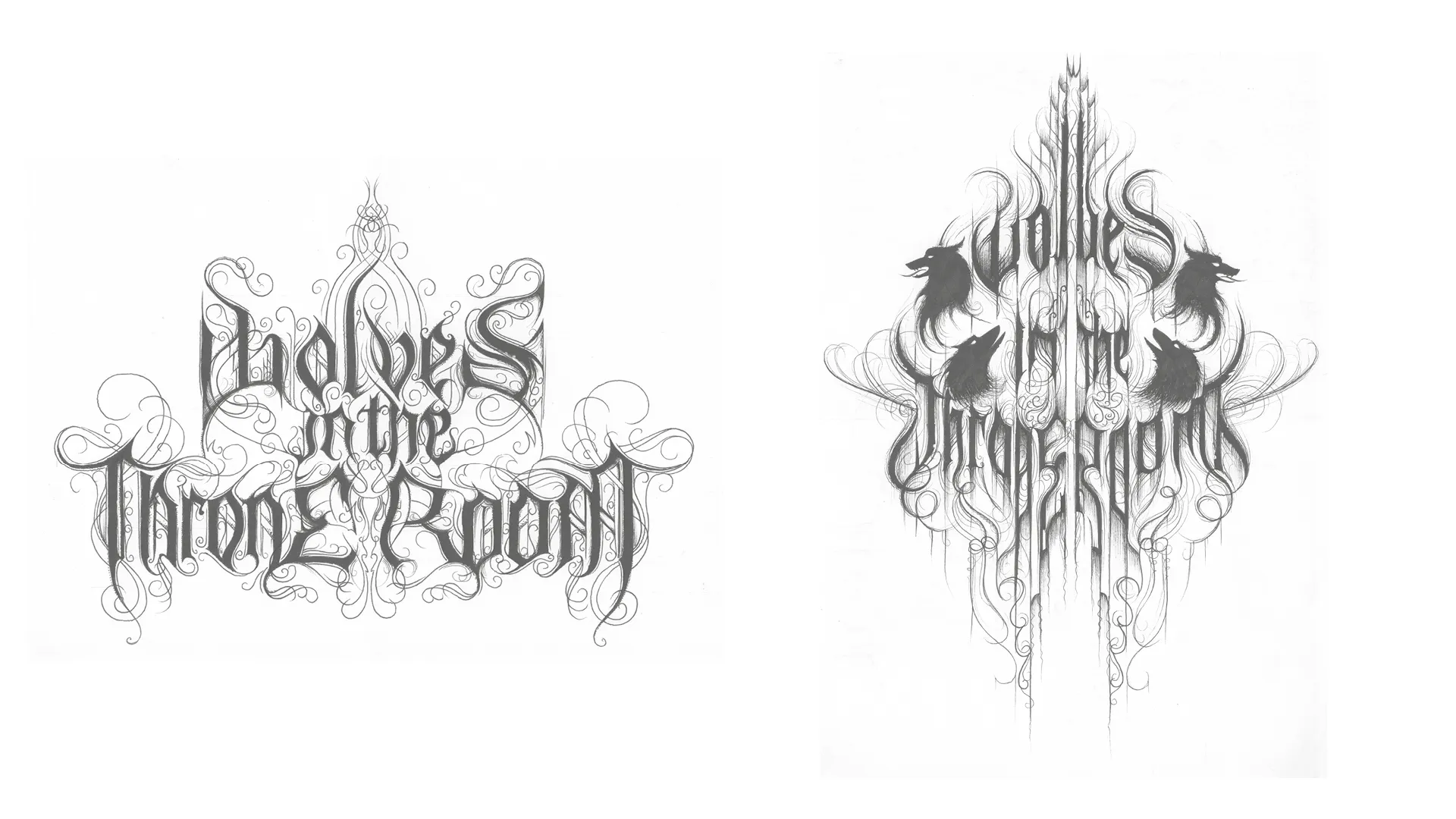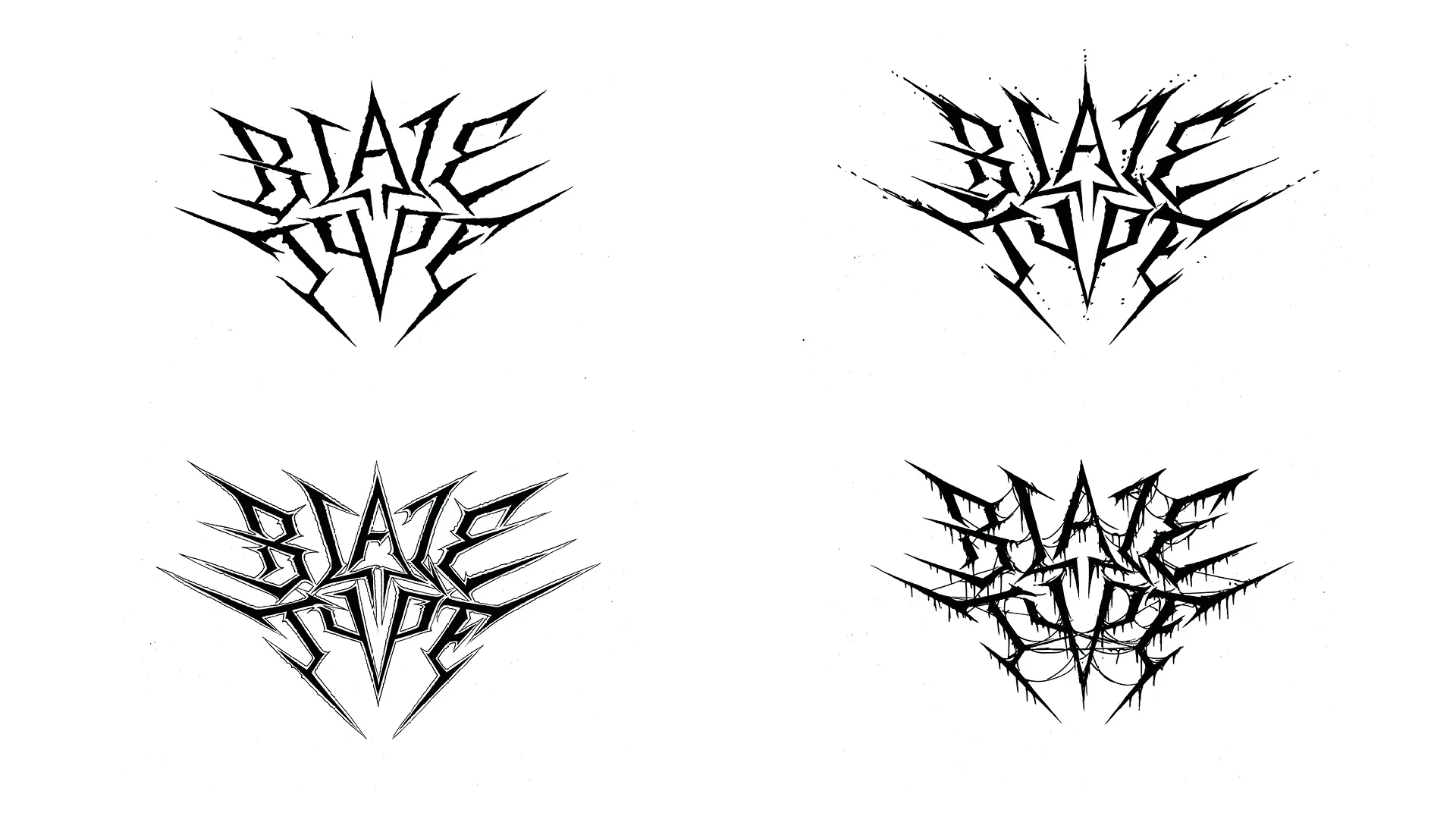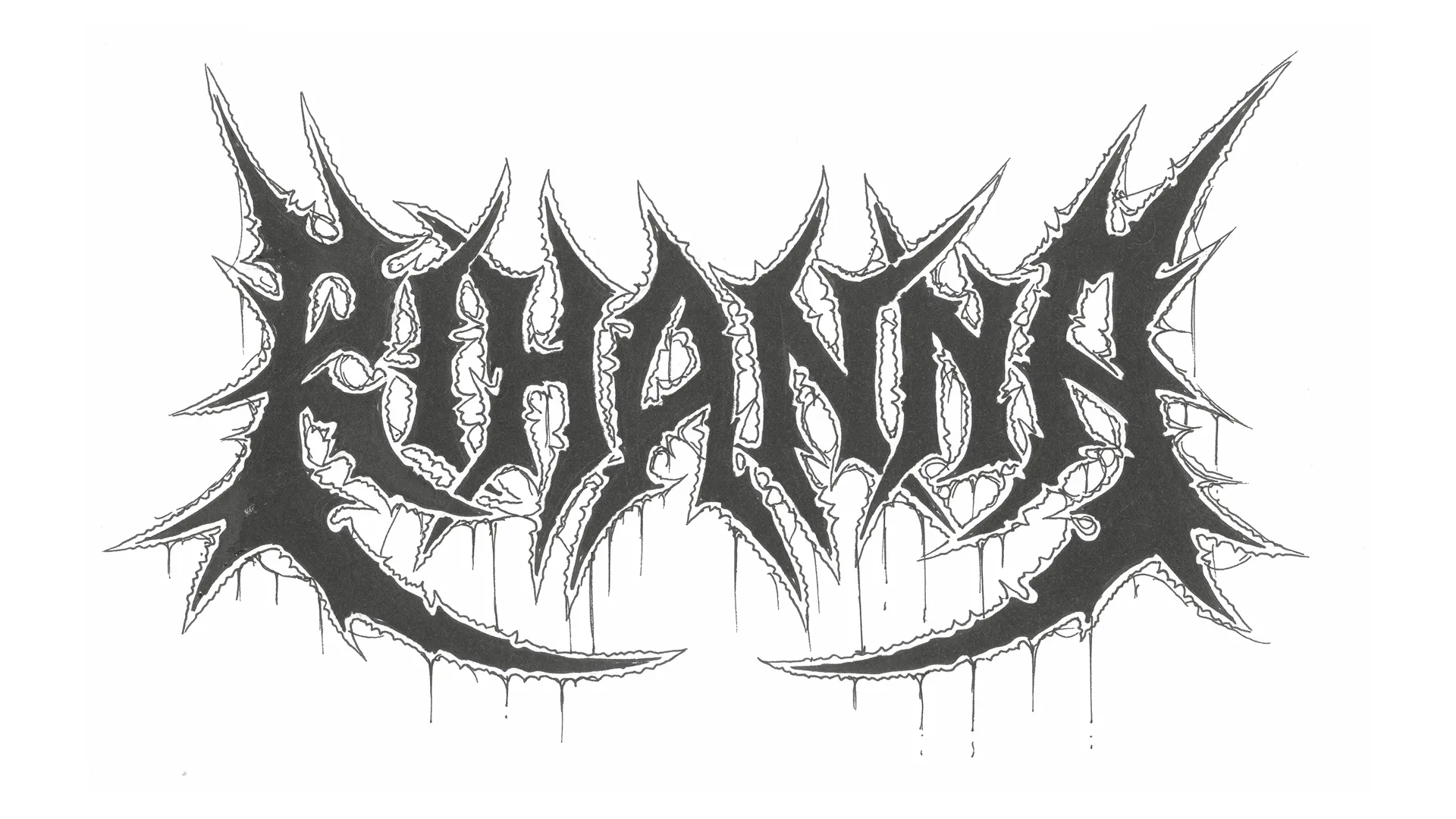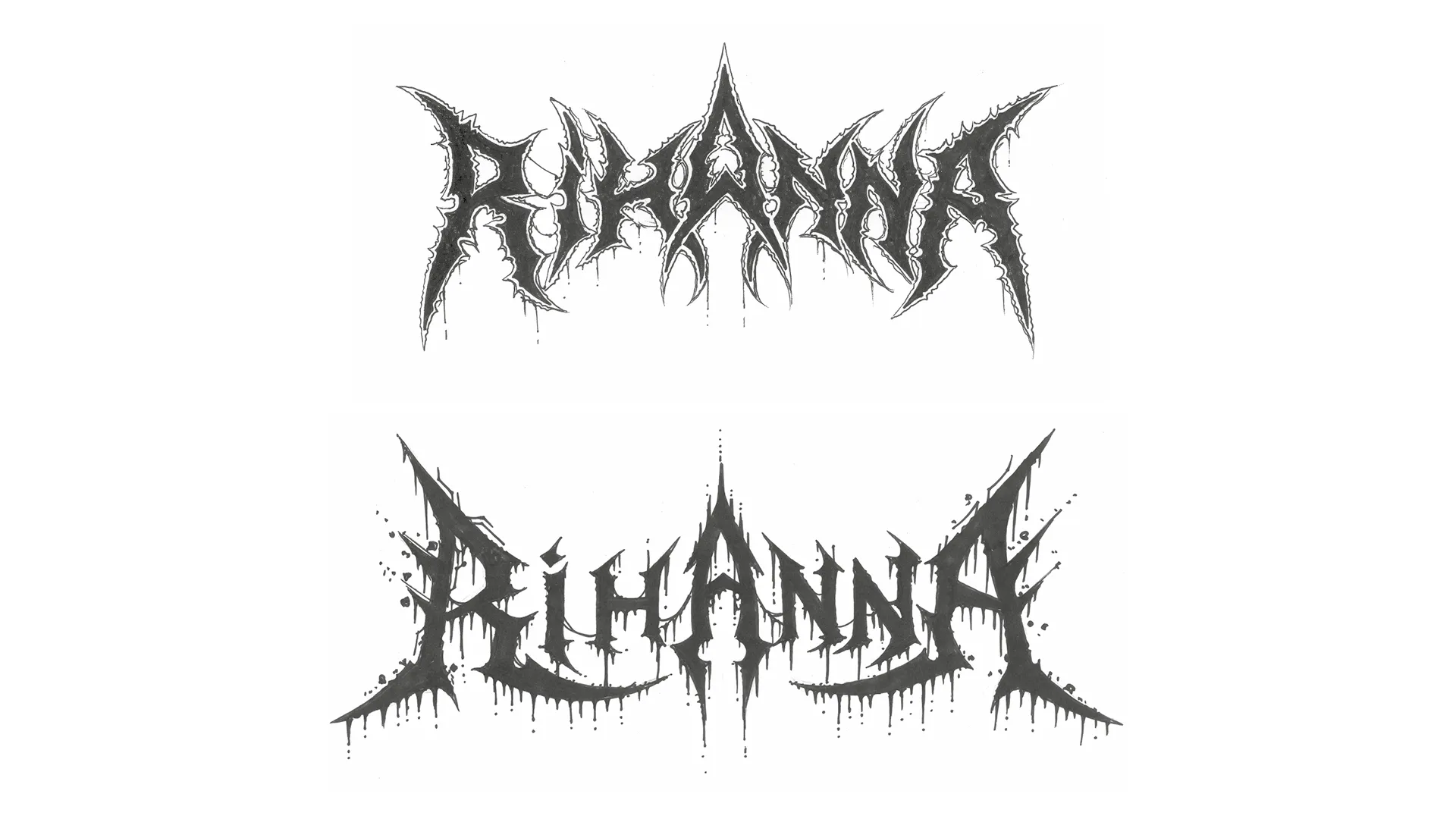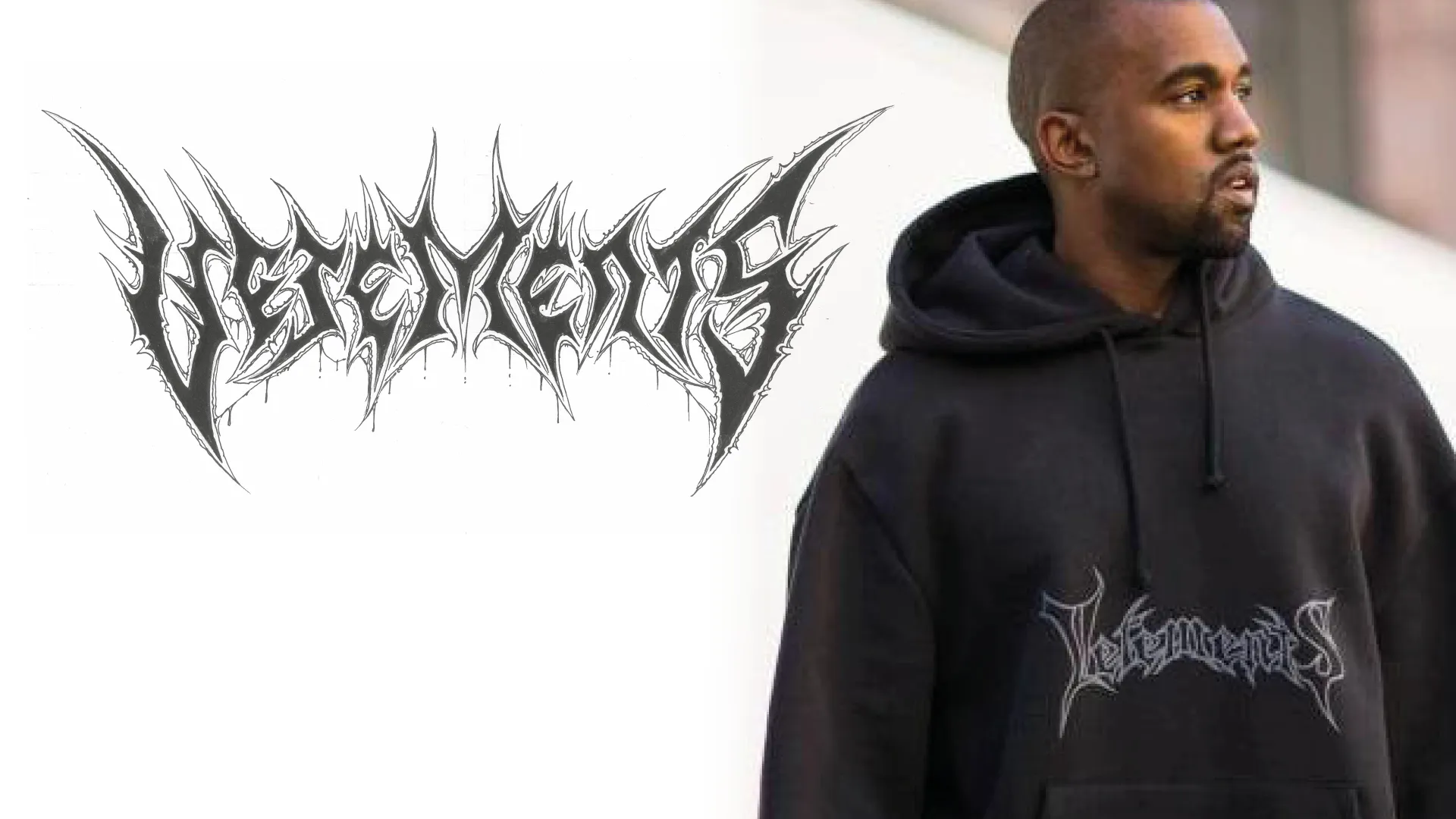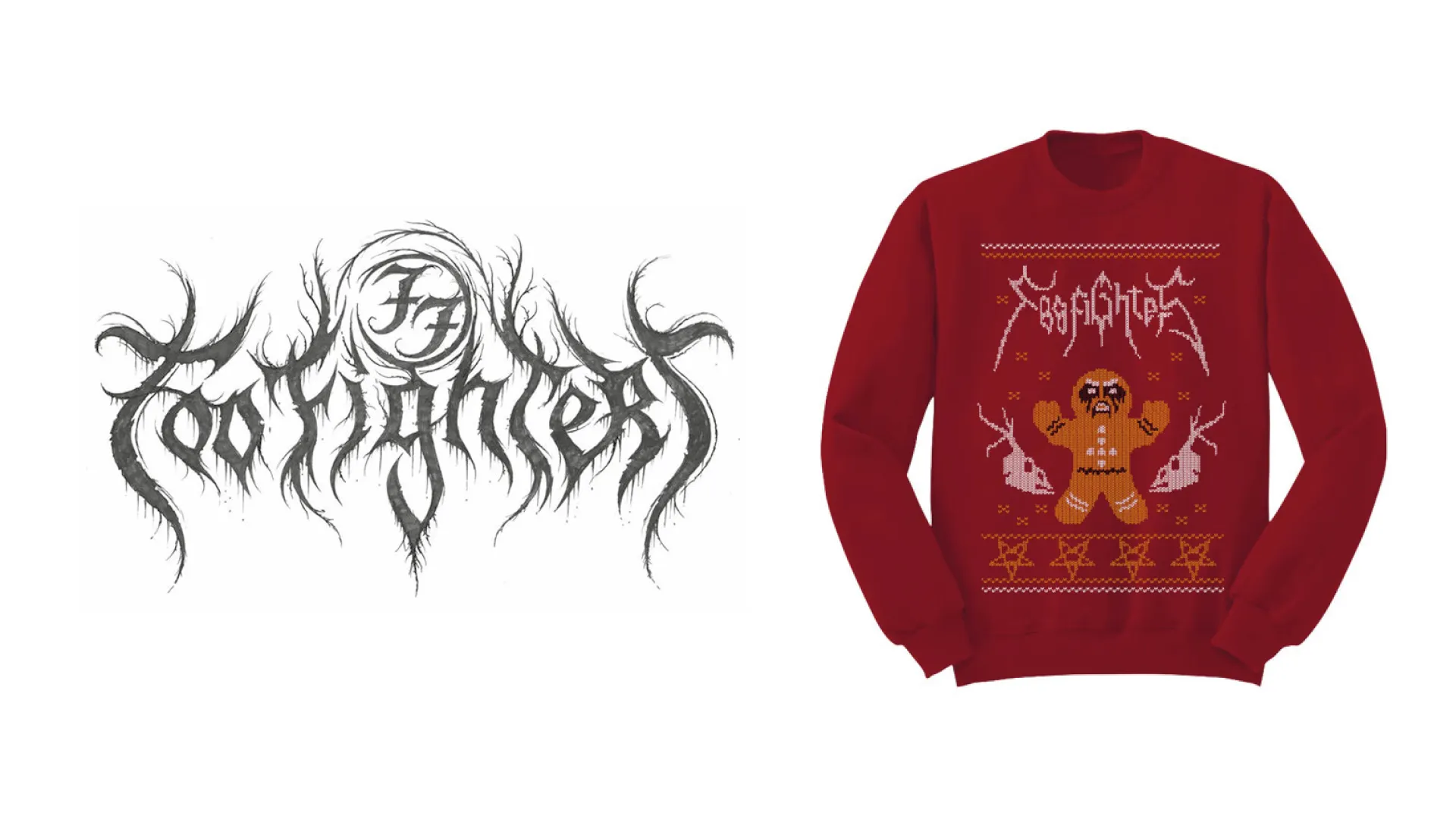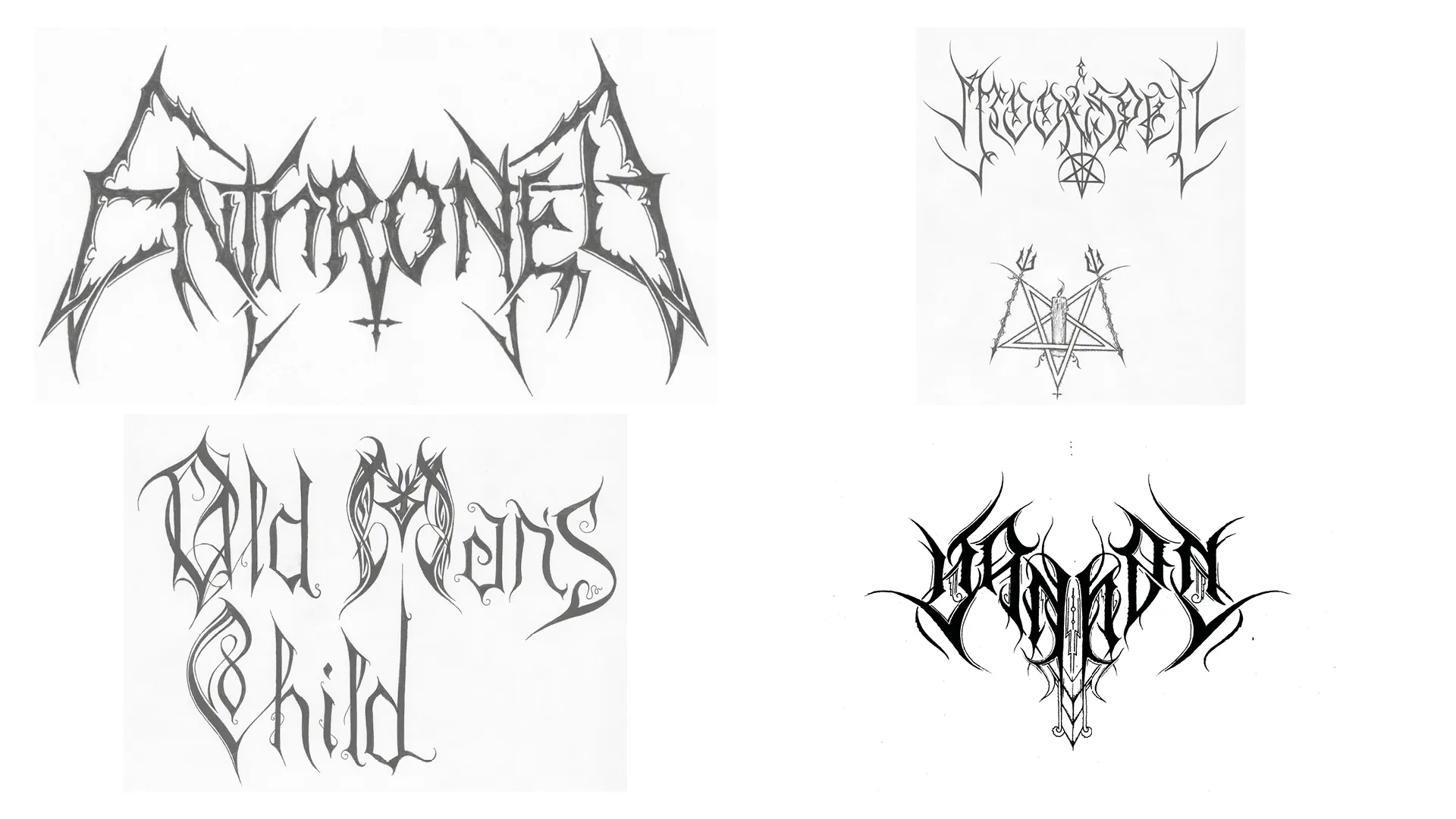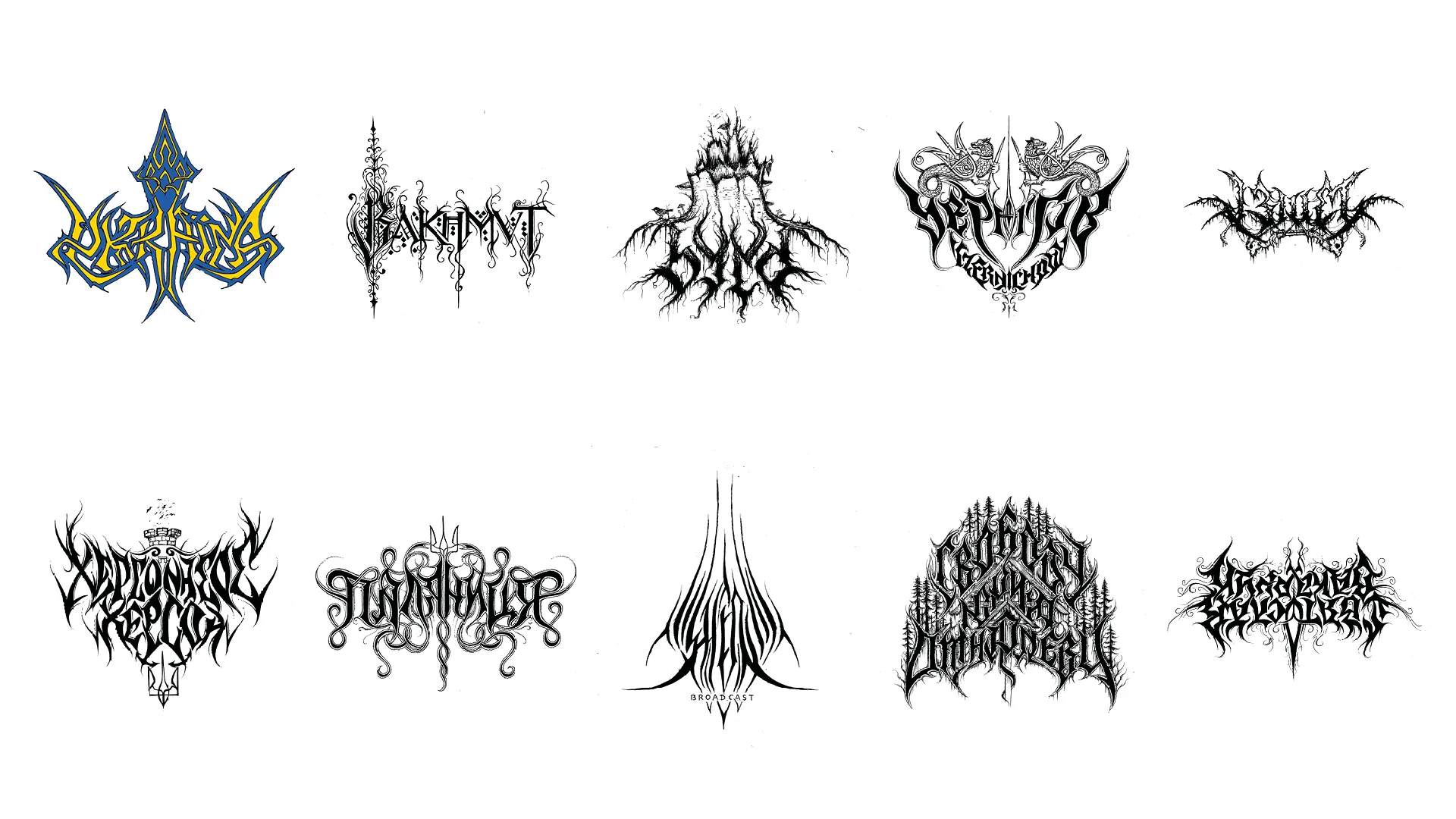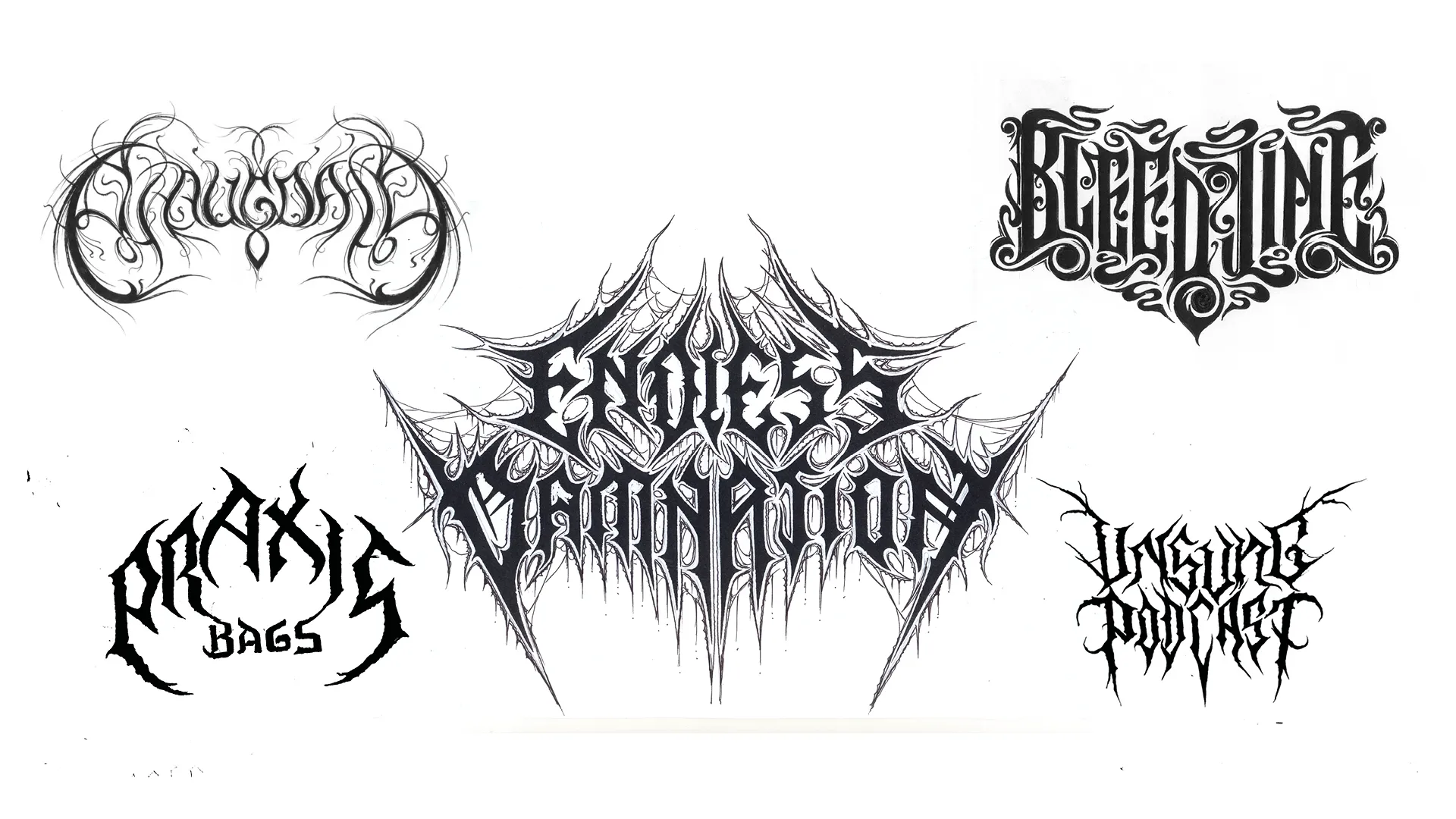
The incredible story of the greatest metal logo artist
Christophe Szpajdel is one of the rare names known in the Metal scene although he is not part of any band. However, since the end of the 1980’s, he has designed almost 10,000 logos for bands such as Emperor, Wolves in the Throne Room or Moonspell. Szpajdel was born on September 29, 1970 in Belgium, where he lived throughout his youth. He is a curious child, fluent in Polish and French, but learning Spanish, Portuguese, Italian, Ukrainian or Dutch very easily. He was fascinated by the Art Nouveau lettering encountered in Belgium, and by nature, both vegetal and animal, inspired him daily for his logo design.
The interview took place over two days. Christophe answers with passion and conviction, not hesitating to quote many bands whose music and logos he appreciates.
In terms of training, are you self-taught?
Indeed, I had practically no artistic training. So at this level, I can say that I am 100% self-taught.
Did you discover calligraphy through logo design, or was it an interest you had before?
I actually became interested in calligraphy when I was 9-10 years old. I was very interested in the different medieval calligraphy styles. But above all, I was very interested in typography linked to Art Nouveau and Art Deco, and then in oriental, Arabic and Turkish calligraphy. It's something that interested me a lot independently of logos.
But apart from Metal logos, I was also interested in the typography of brands. A very memorable logo that has changed very little is the Coca-Cola logo. Logos have become very important in the Metal scene.
Have you ever signed logos in other writing systems than the Latin alphabet?
Non-latin writting system logos by Christophe Szpajdel.
Indeed, I made several logos in Cyrillic, in Greek. I was also interested in Kanji (Japanese ideograms drawn vertically). It also inspired me to make some logos for Aetherial in Black, a clothing brand that never saw the light of day. It's a pity because in the book Logos from Hell, I inserted two drawings that I had made and that were never exploited.
I have done calligraphy of quotes in Cyrillic or also a logo for the group MaroĐ´er, ("marauder" in English). I have even recently worked for the Armenian group Ildaruni and I would like to make a version of it in Armenian alphabet. It's something I've already tried and it's quite difficult, especially to manage the symmetries and to play correctly on the positive and negative spaces. Same thing with the Arabic alphabet: it's very difficult. But on the other hand, I also make logos in Latin alphabet inspired by Arabic, Georgian, Armenian, Cyrillic, Balkan, Turkish calligraphy...
You talk about Ottoman calligraphy, do you know the tugras?
I was also very interested in the tugras. It's something I had already explored before I knew their names. I was inspired by them in my logos just as I am influenced by Ottoman or Middle Eastern calligraphy. An example is the logo of the Arabic news channel Al Jazeera, which has a beautiful lettering that inspired me. I have marked this interest in the aesthetics of some of my logos, for clothing brands or more rarely for tattoos.
Can you describe to us a little bit how you got interested in the Metal logo ?
At the age of 7, in 1978 to be exact, I came across Kiss' "I was made for Lovin you" by accident. I fell in love with this logo, this visual, and then, one thing leading to another, I continued with Metal. I had a great interest in Metal logos, and in 1986, it was my confirmation as a metalhead: King Diamond, Sodom, Slayer, Candelmass, Halloween, Vulcan, Killers, Killer (Belgium), Crossfire, Sodom, Destruction, Protector. Morbide Death (precursor of Blasphereion and then Enthroned) was one of the most important logos for Belgian bands.
Kiss "I was made for loving you"
The real launch of your career in the extreme metal scene is the Emperor logo. Can you tell us about this adventure ?
In 1989, I met Thierry Prince and his fanzine Septicore. We published 7 issues between 1989 and 1992, but it's thanks to the correspondence that I exchanged with Samoth. He edited a fanzine called Z.A.S.T. and played in a metal band called Xerasia, then in Embryonic. Then one day, in his mail, he tells me that he forms a new band called Emperor. I took him by surprise, you know, with a logo that was very strong. A logo that had an impact. I really like the simplicity in the logos, that they are immediately legible.
The original Emperor logo drawn in a squared paper.
This Black Metal lettering aesthetic was quite new at that time. But were you already influenced by other logos?
In the logos of bands that really inspired me, well, it's the South American scene of the late 1980s, with Brazilian bands like Sarcófago, Genocidio, Sepultura, Dorsal Atlântica, or MX. More generally, Masacre (Colombia), and the Chilean bands Death Yell, Sadism, Atomic Aggressor and Torturer. These are really the logos that spoke to me the most. It was in 1989, when I was receiving a lot of flyers for the Sala Lautaro concert in Santiago de Chile.
Logos Influences:
Some famous Metal logos by Szpajdel :
Enthroned, Moonspell,
Old Man's Child Vannon.
Amygdala, Bleedline,
Praxis, Endless Damnation, Unsung Podcast